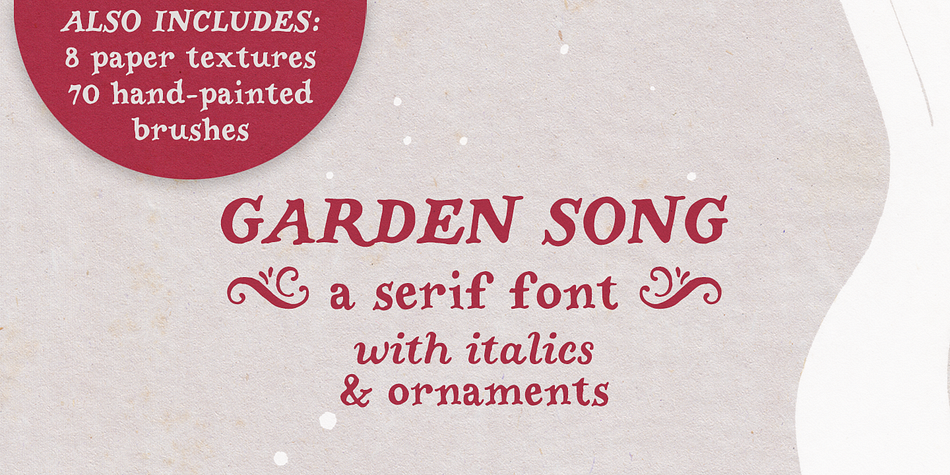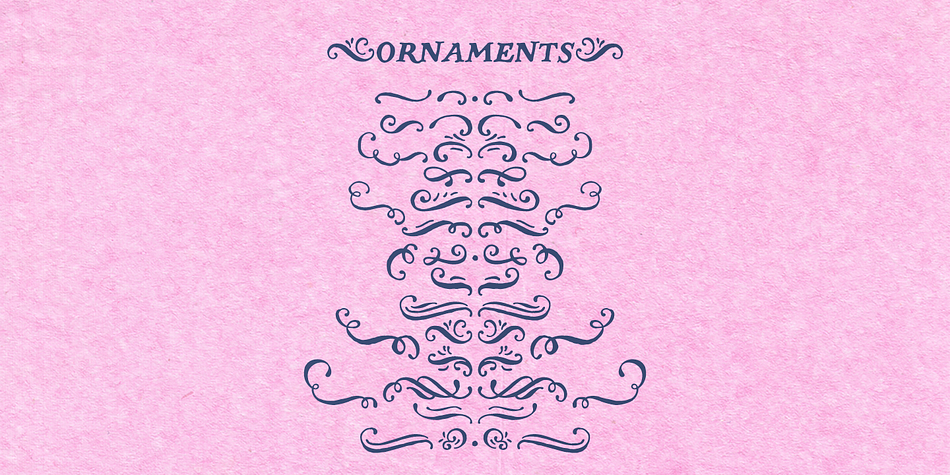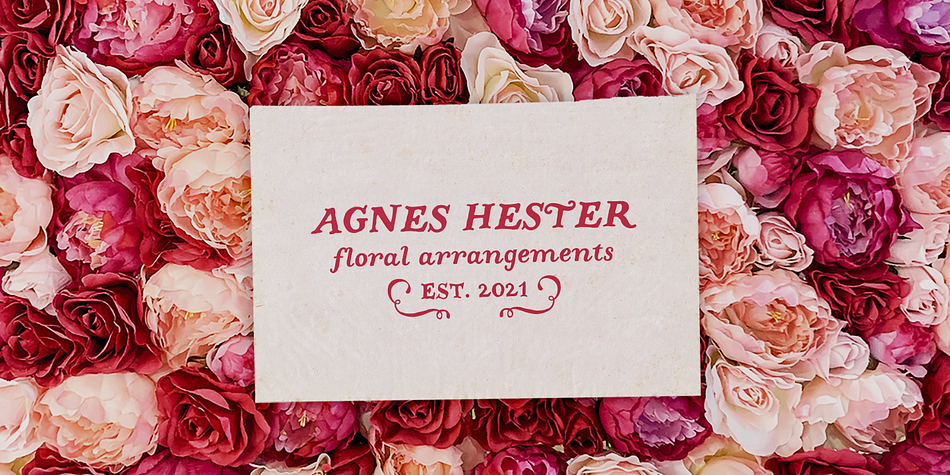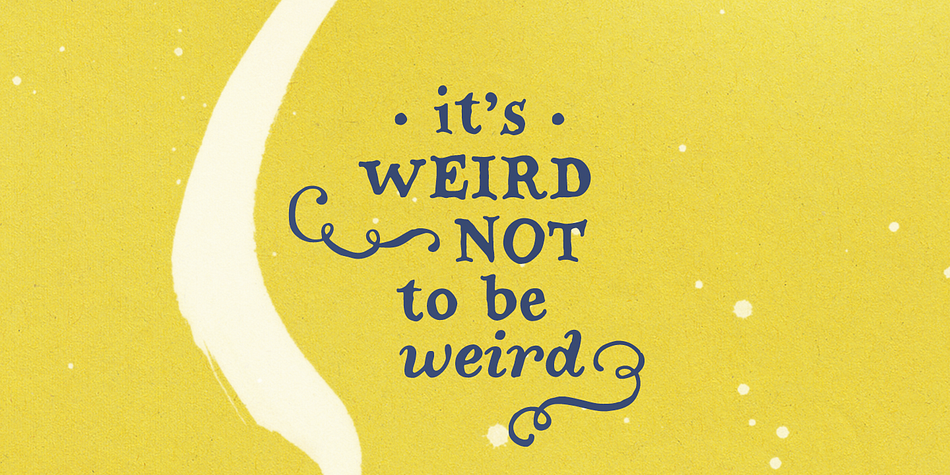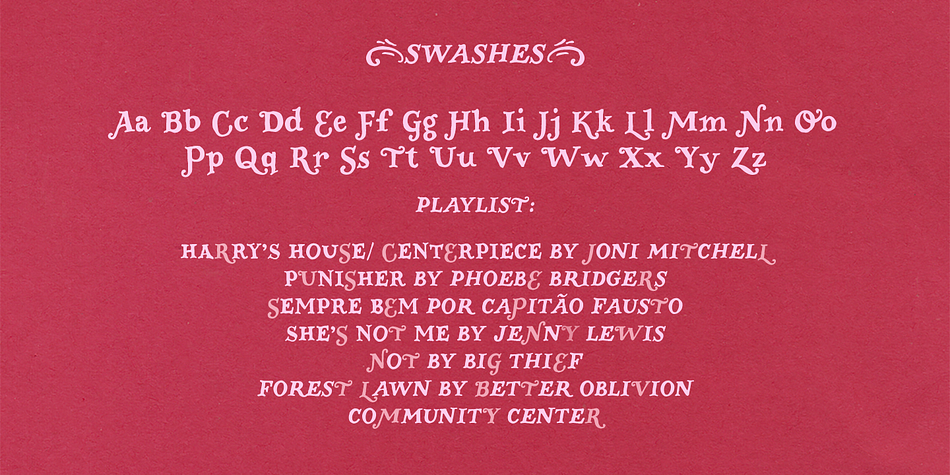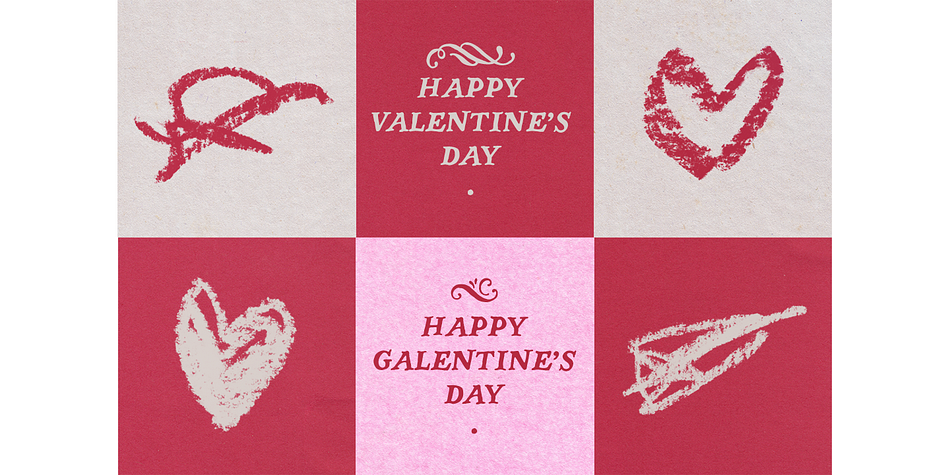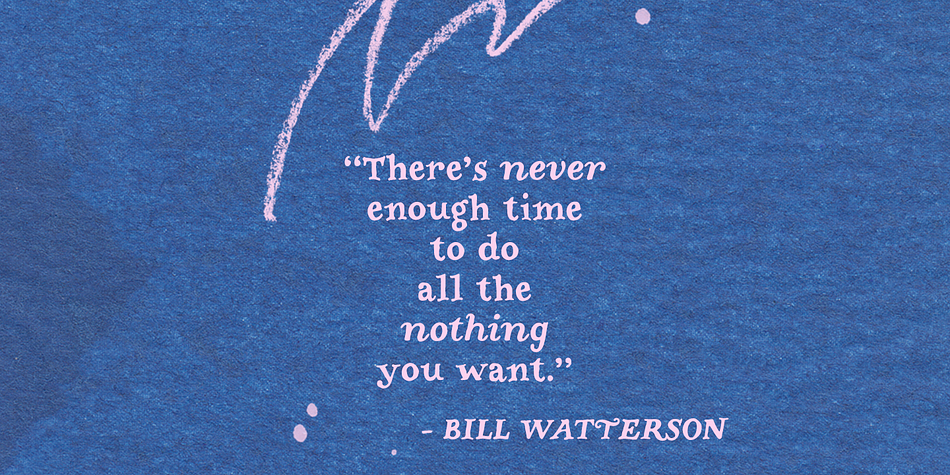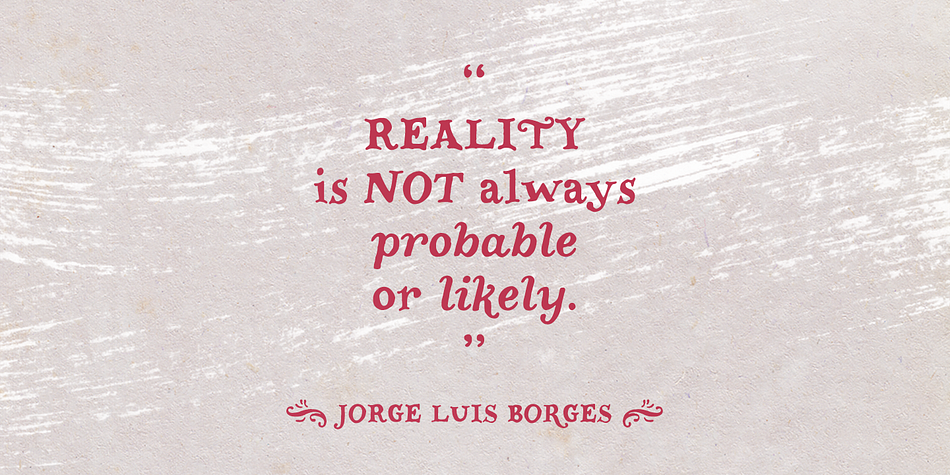
Designed by Ana Parracho, Garden Song is a hand display and dingbat font family. This typeface has three styles and was published by Ana's Fonts.
Garden Song is a quirky handmade serif font family with lots of bonus goodies. Garden Song includes a serif font, with handmade italics and ornaments, and a bonus set of high-resolution paper textures, and hand-painted Photoshop brushes. Use Garden Song in designs such as postcards and notes, posters, logotypes, social media posts, branding and packaging.
- Garden Song: a serif font with a cute hand lettering feel and swashes for the caps, with matching
- Garden Song Italic, and
- Garden Song Ornaments: a set of 26 ornaments